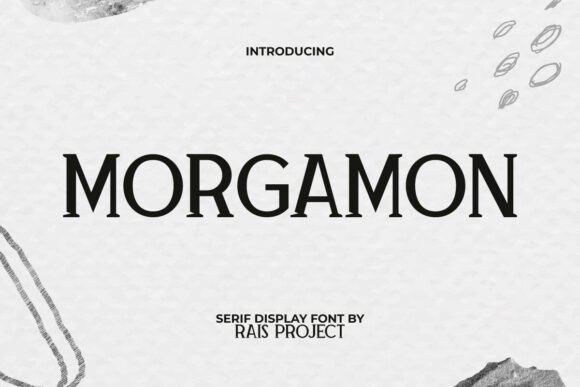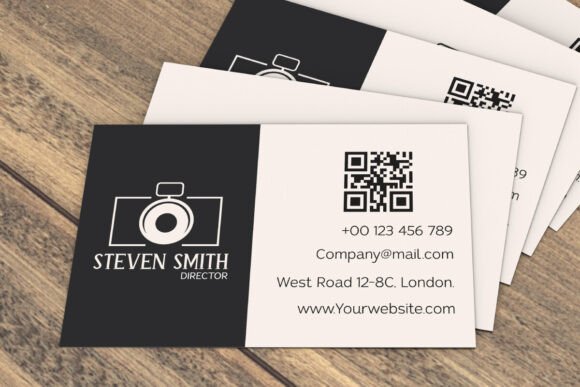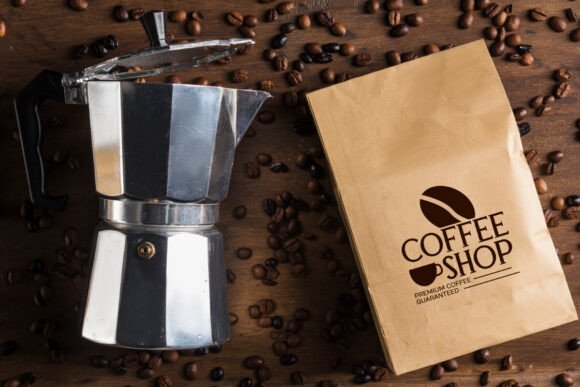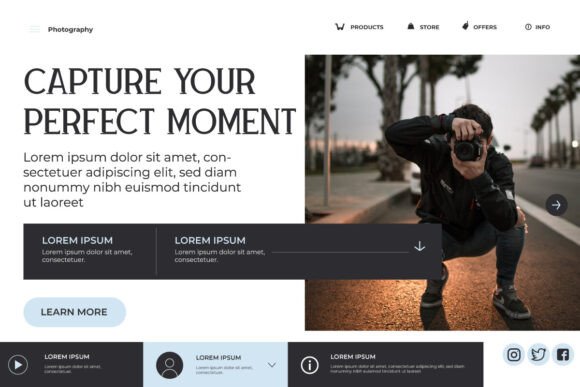
Morgamon Font: A Bold Serif Display Font for Modern Branding
About the Morgamon Font
Crafted with precision, the Morgamon Font is ready to bring your ideas to life. Morgamon Font is an attractive, manly serif display font. This font is similar to the Serif type in general, but made unique to make it an interesting differentiator. It will work well in many designs, such as brand image, custom design, invitation, label, menu, poster, product packaging, quote, signage, stationery, web, and more!
Morgamon’s bold, masculine serifs make it ideal for headlines, logos, and short impactful text in branding materials, posters, and packaging. Its strong character shines in applications requiring a confident and authoritative presence. Avoid using Morgamon for body text or lengthy paragraphs; its weight and design aren’t optimized for readability in continuous prose or UI elements.
This font pairs well with clean sans-serif fonts like Montserrat or Open Sans for a balanced contrast, or a more playful script like Pacifico to soften its strong personality. For a more modern and sophisticated feel, consider pairing Morgamon with a geometric sans-serif such as Futura. The contrast will create visual interest without sacrificing readability.
Ultimately, Morgamon’s strength lies in its ability to command attention. It best suits brands projecting strength, tradition, or a premium feel, making it a powerful tool for conveying authority and sophistication.
Morgamon Font Usage Examples
Morgamon Font Example